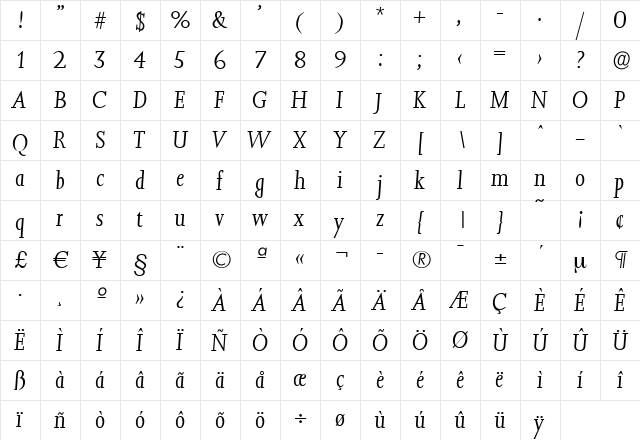
JessicaBecker-Light Italic Font Preview
JessicaBecker-Light Italic
Design Context for JessicaBecker-Light Typeface
JessicaBecker-Light is a composed and adaptable typeface that performs quietly and consistently across a wide range of design contexts. The slanted form adds forward momentum and visual energy. Its slender proportions lend an understated elegance to any composition.